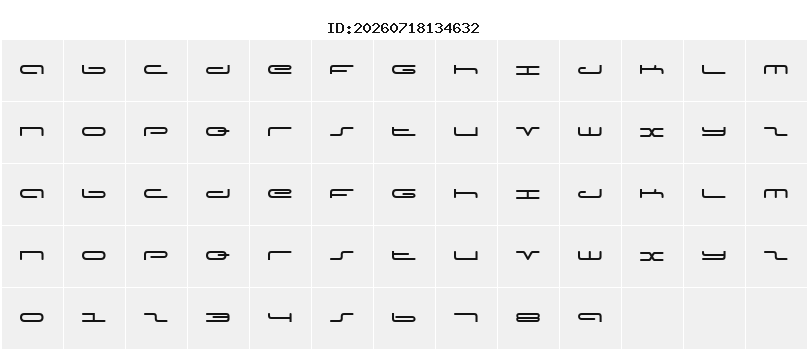
• Font Name: Captain Podd
About Captain Podd.ttf
Captain Podd.ttf is a modern, elegant sans-serif font designed for ultimate readability and visual harmony. Perfect for branding, headlines, web design, and print materials.